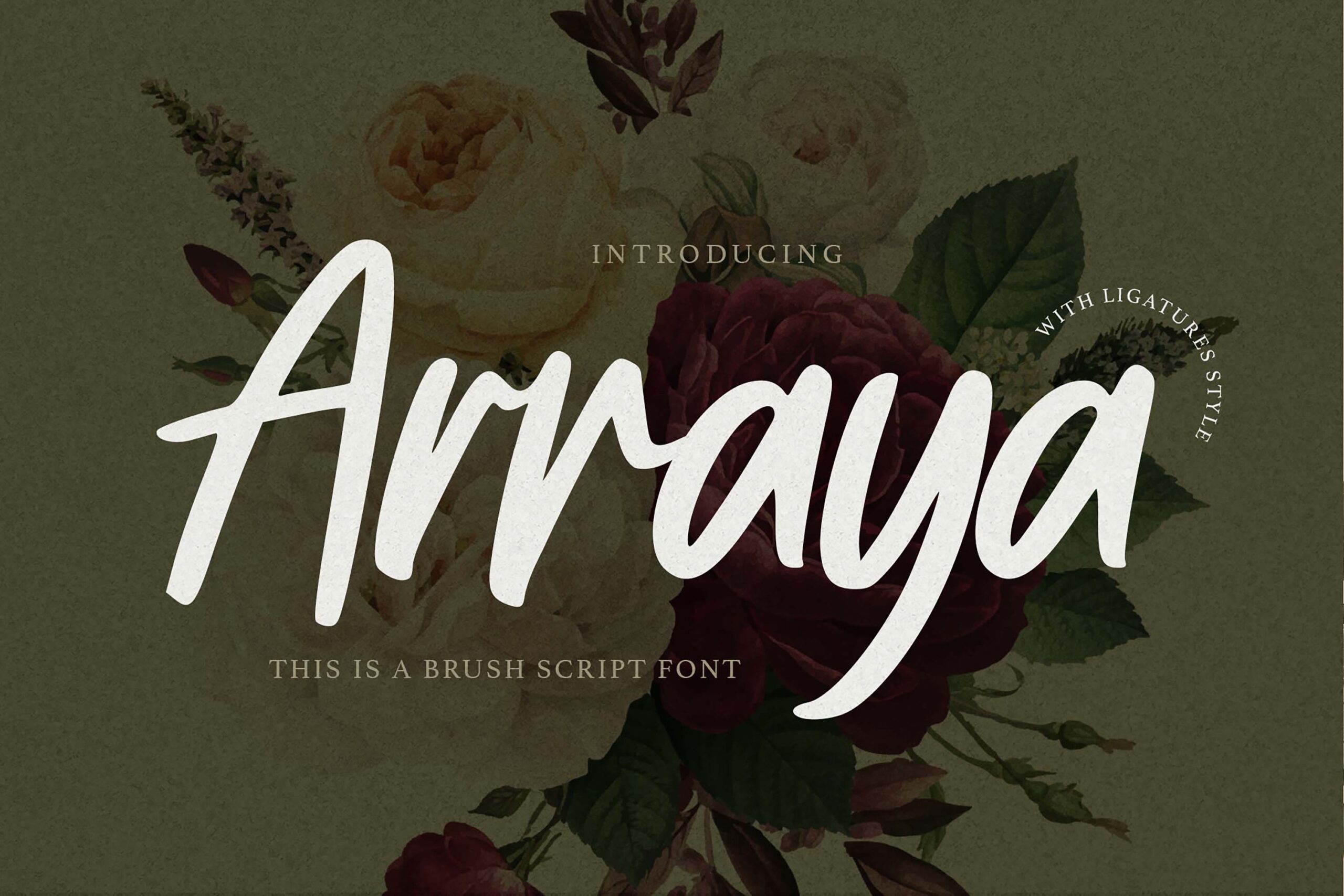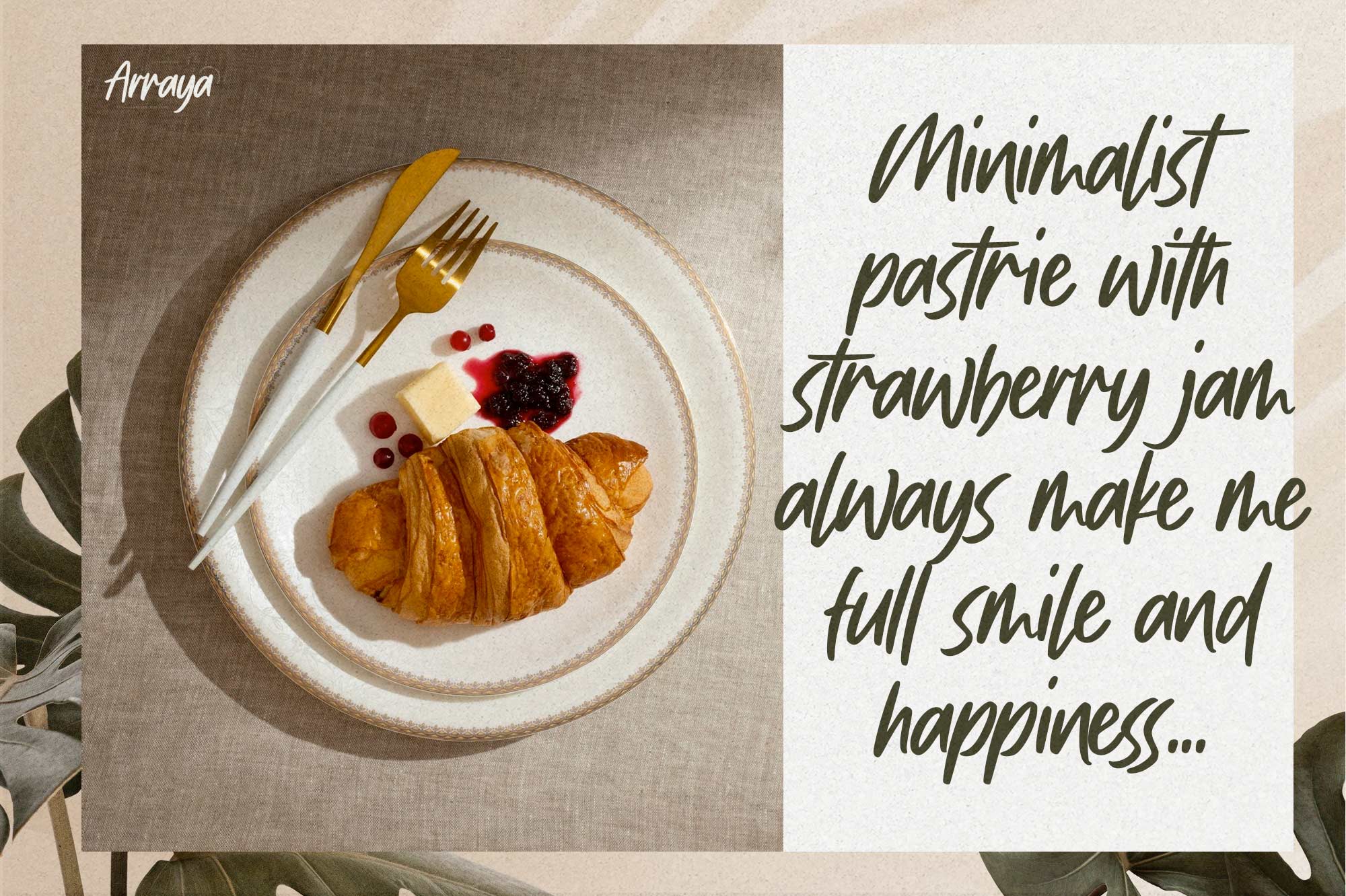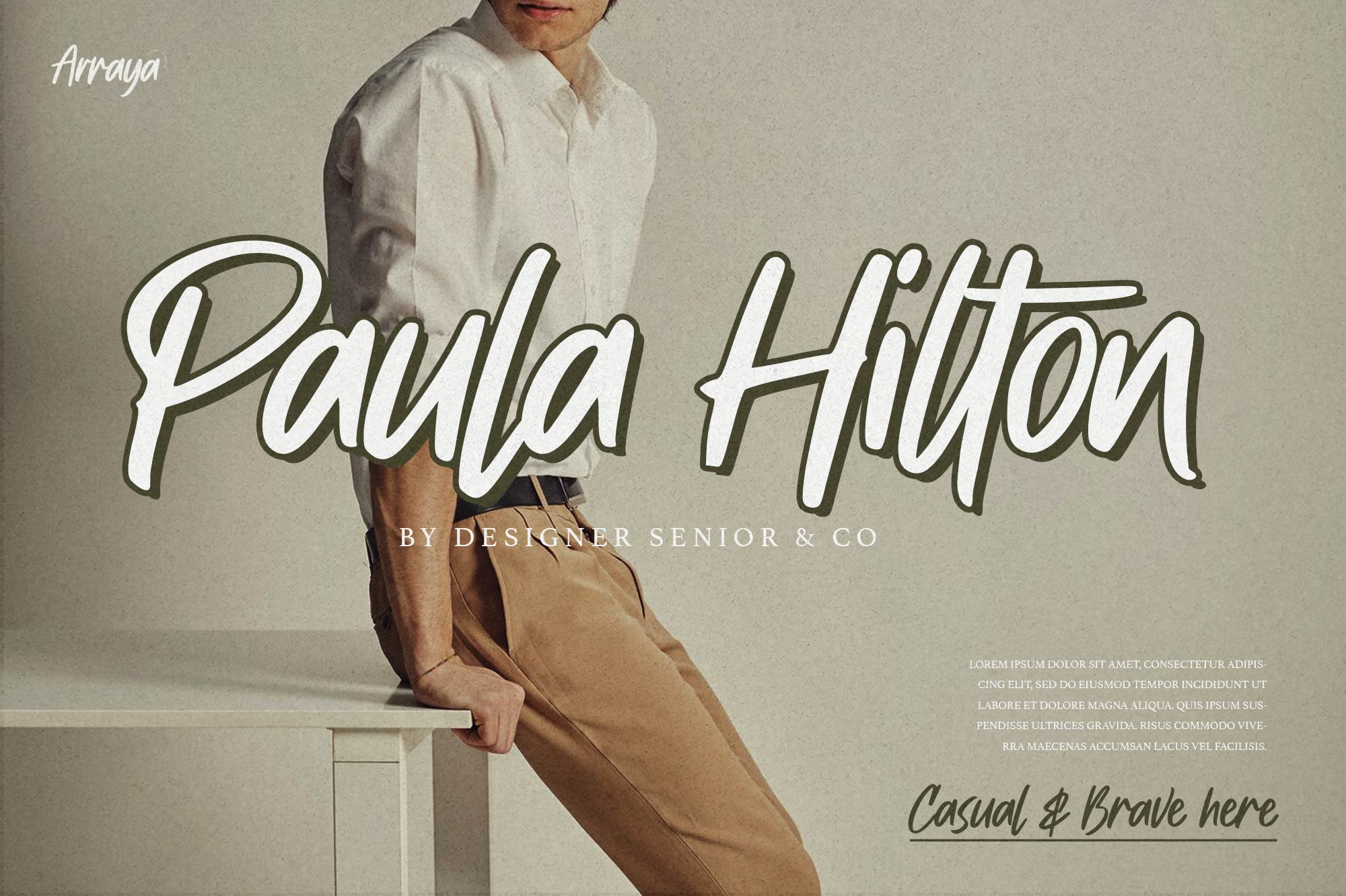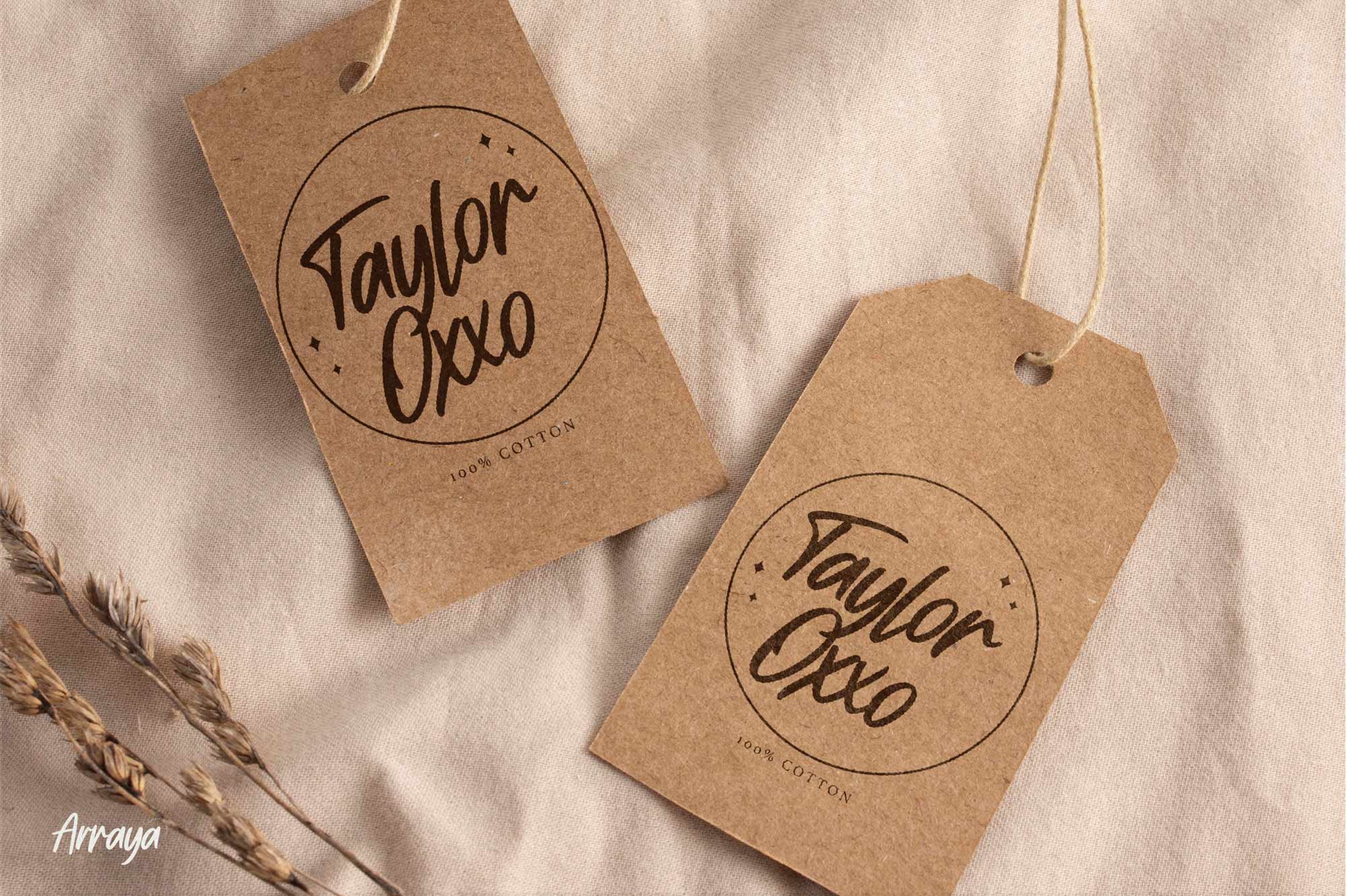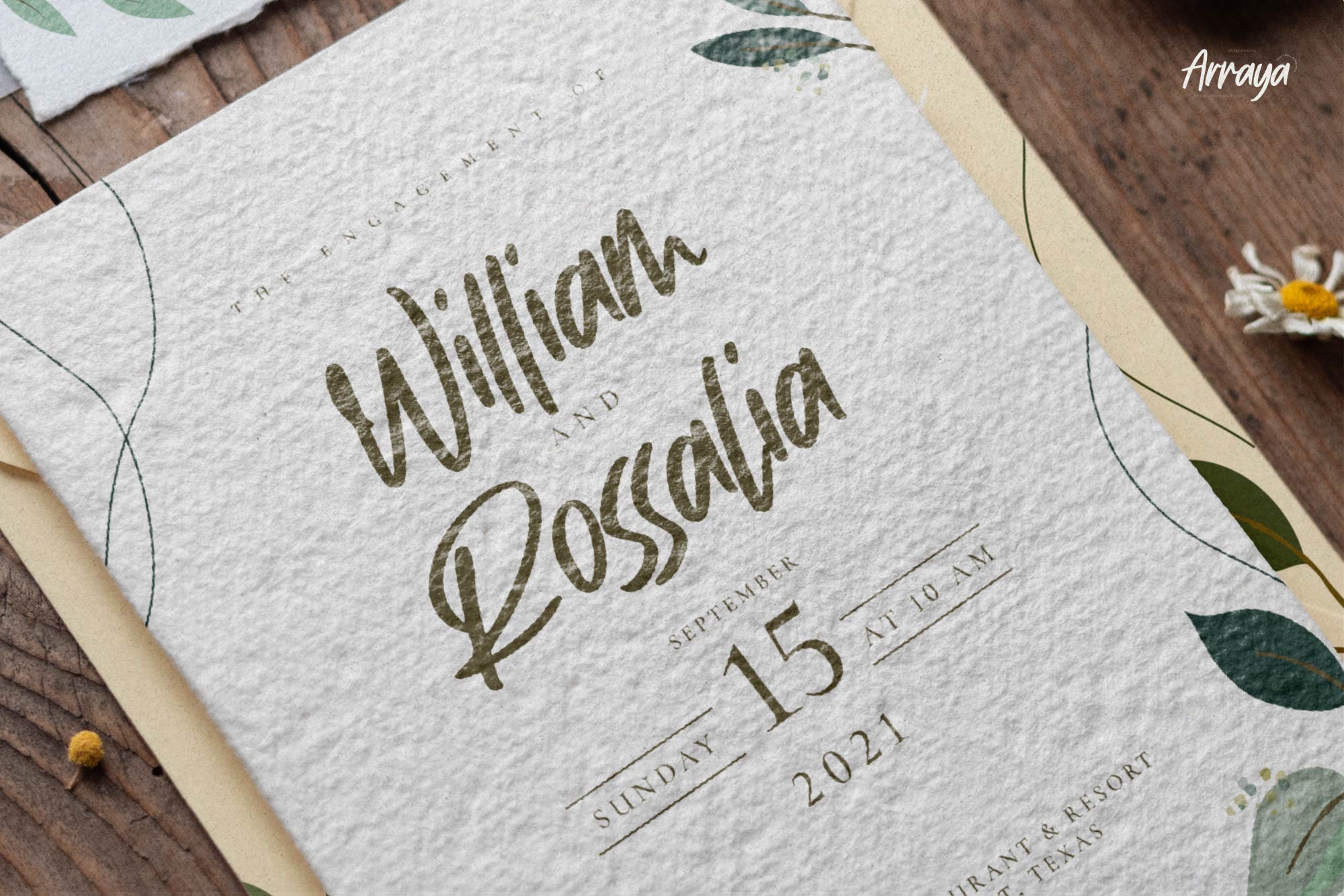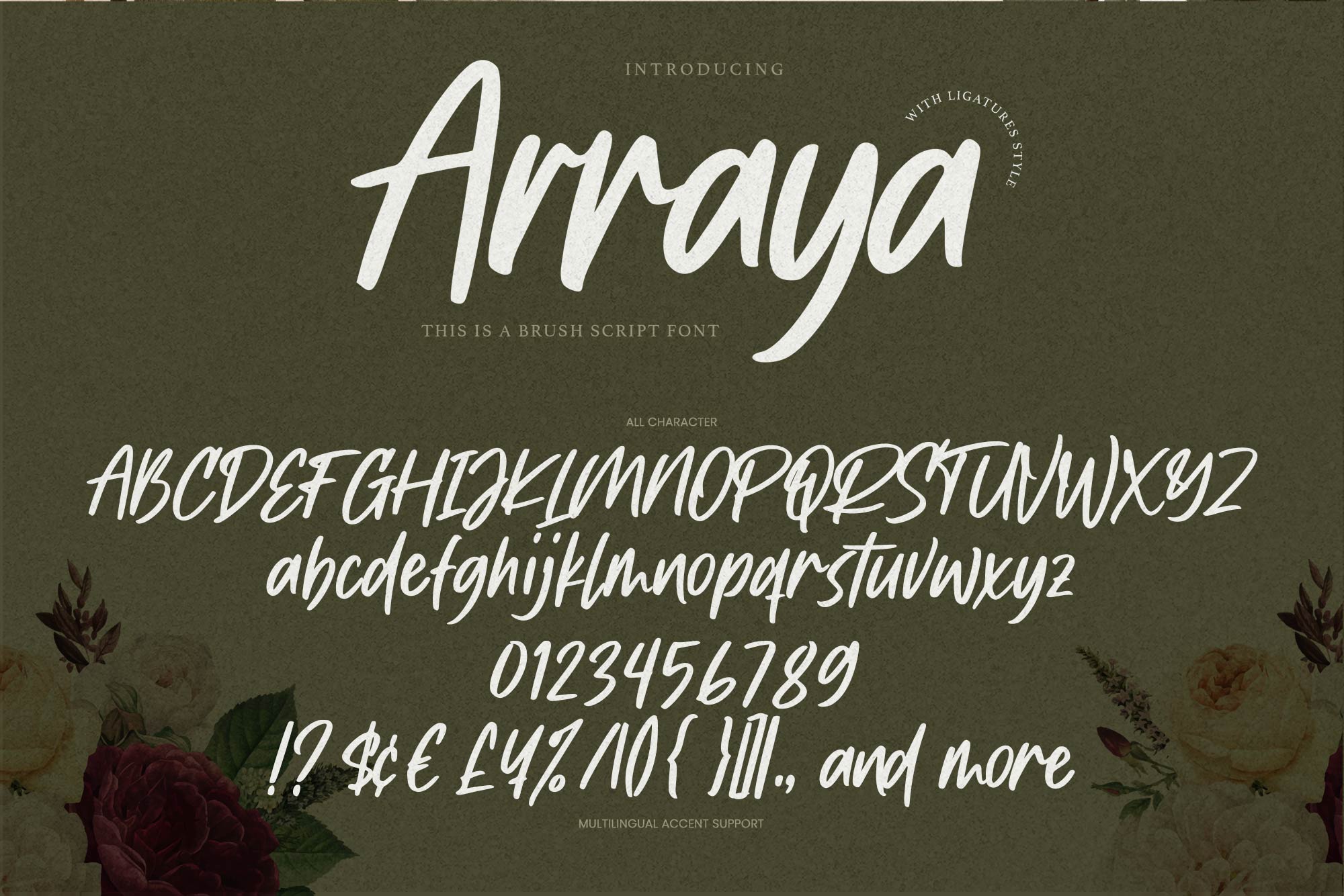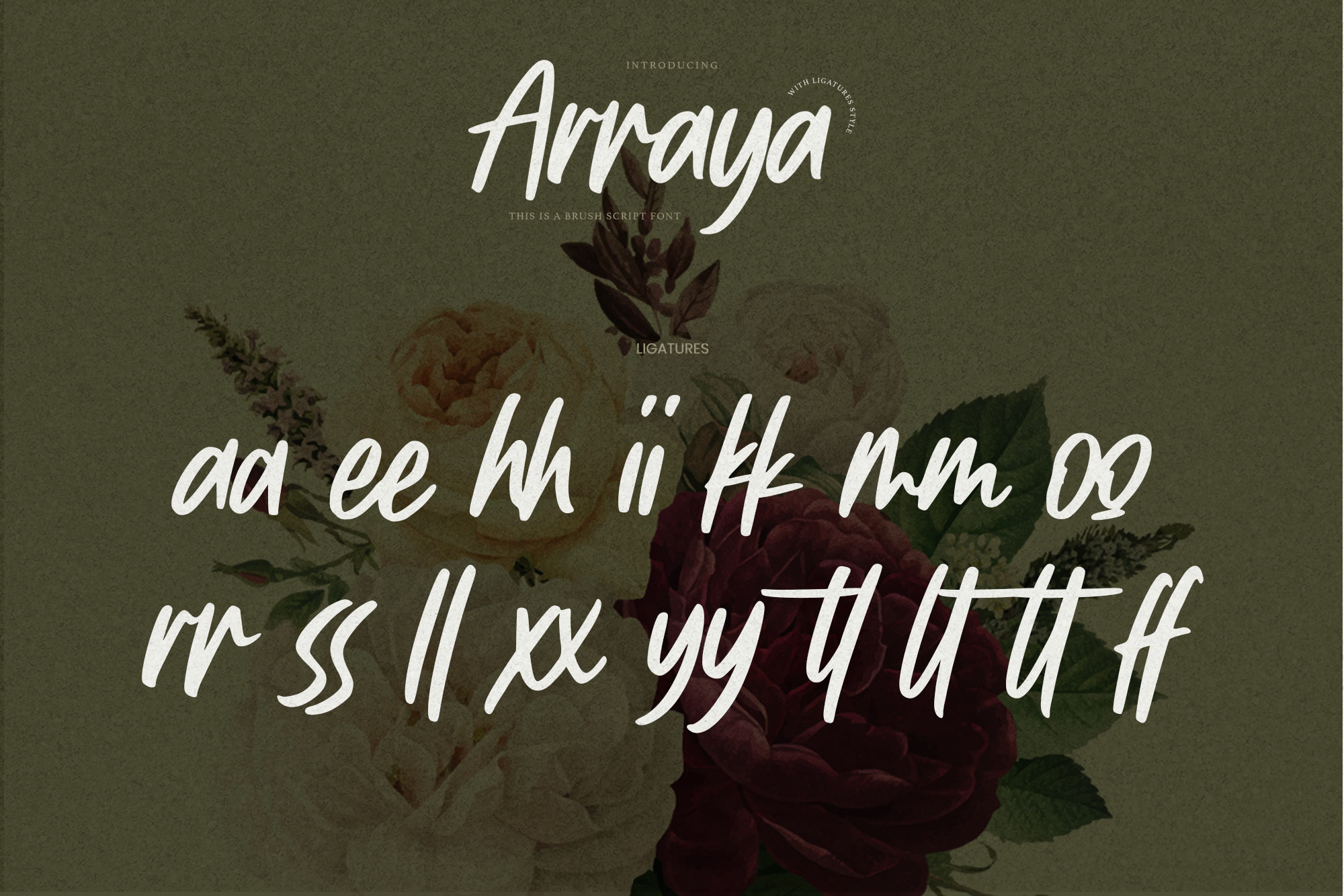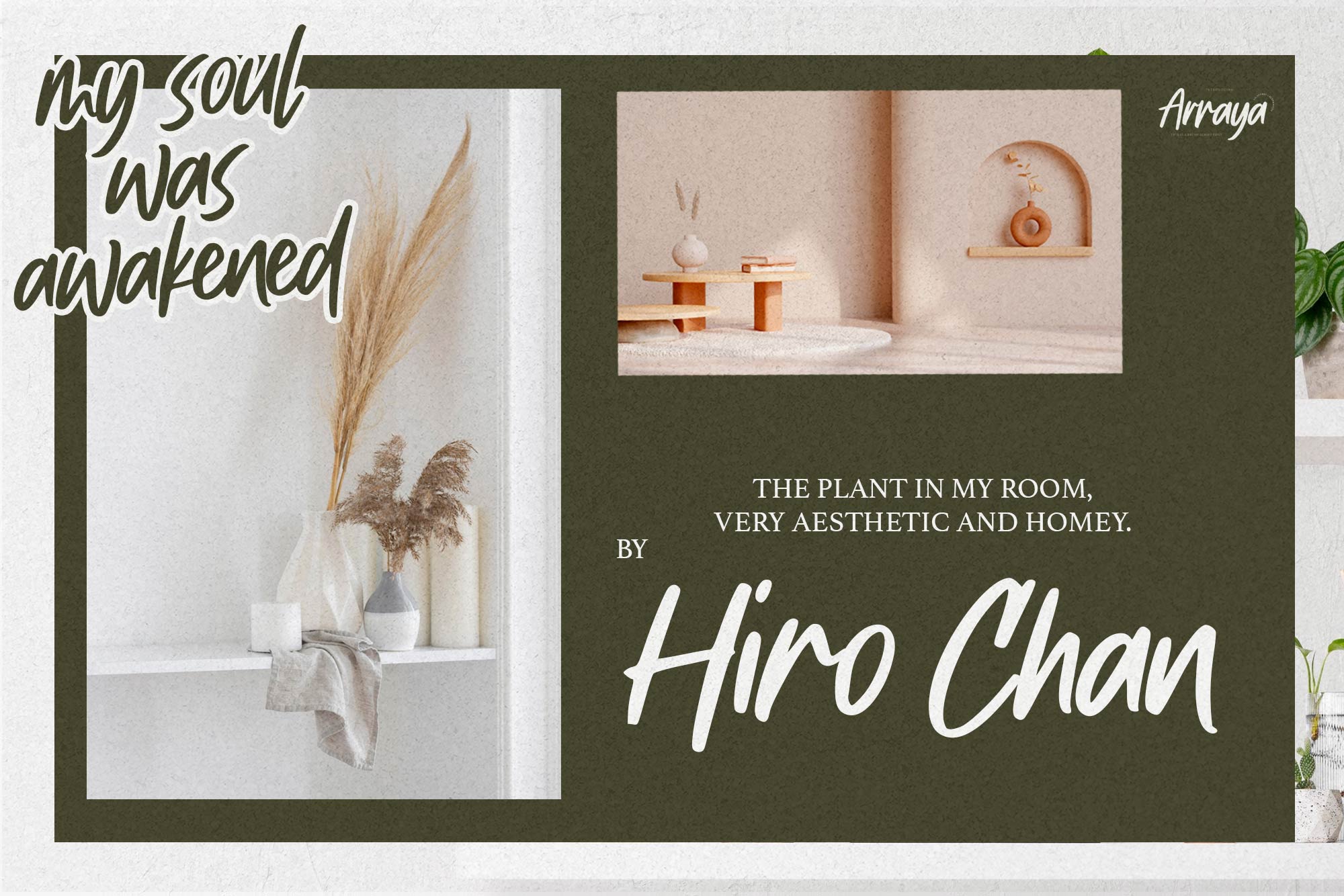
Arraya – Brush Script Font
We are excited to introduce our new product: Arraya – Brush Script Font. This font blends natural elegance with a touch of drama, perfect for adding a classy and clear style to your projects.
Arraya is ideal for:
– Logos
– Printed quotes
– Invitations
– Cards
– Product packaging
– Headers
– Logotypes
– Letterheads
– Posters
– Watermarks on photography
– Branding
– Advertisements
– Product designs
– Stationery
– Wedding designs
– Labels
– Special events
This font’s charming, authentic, and relaxed characteristics bring a natural look to your text.
– Standard glyphs
– Ligature glyphs
– Alternate glyphs